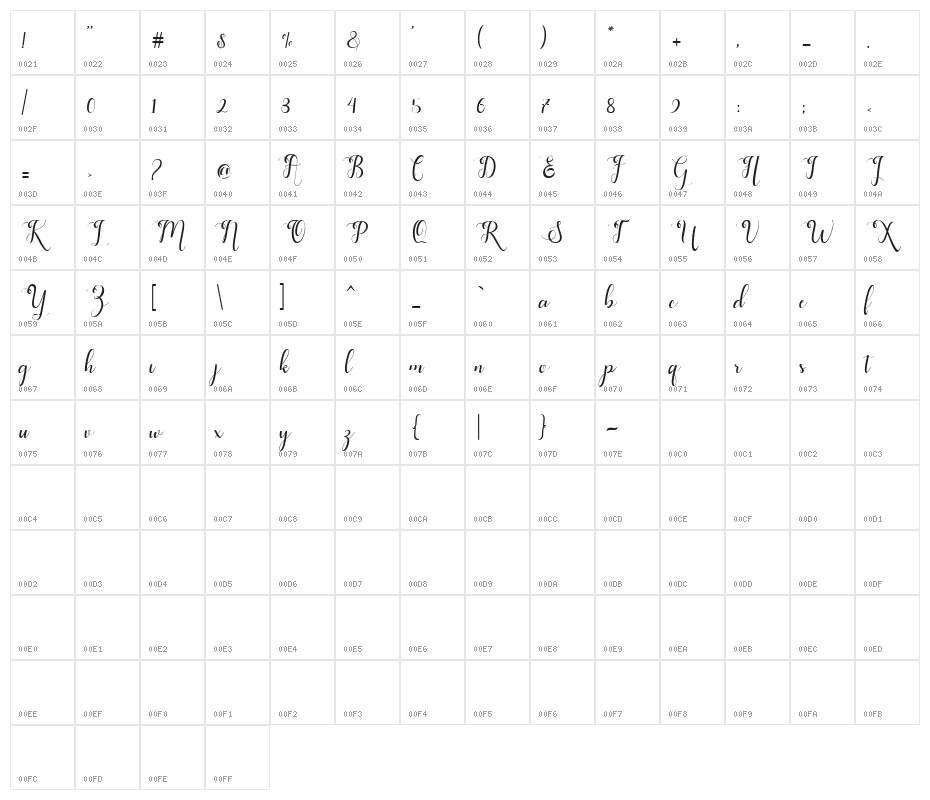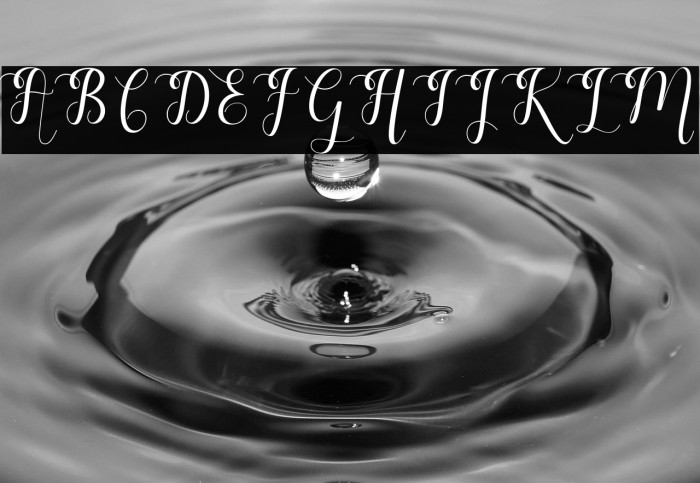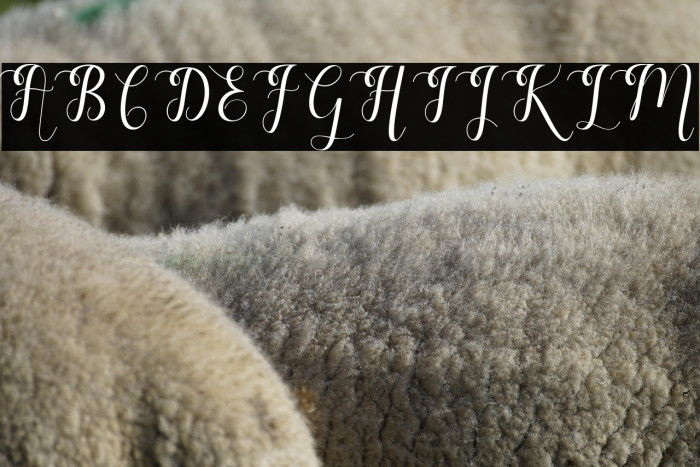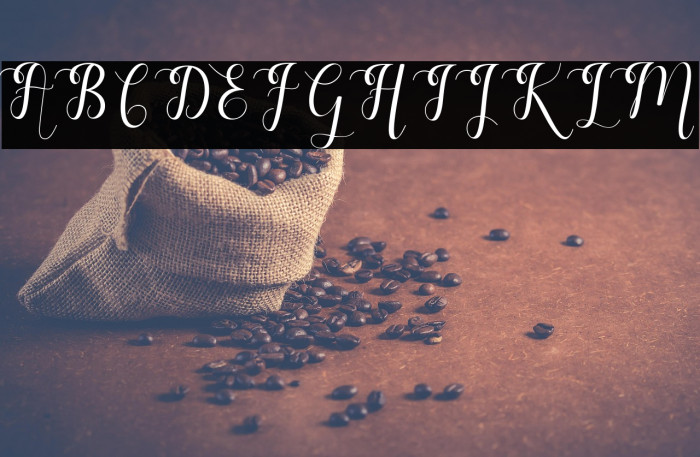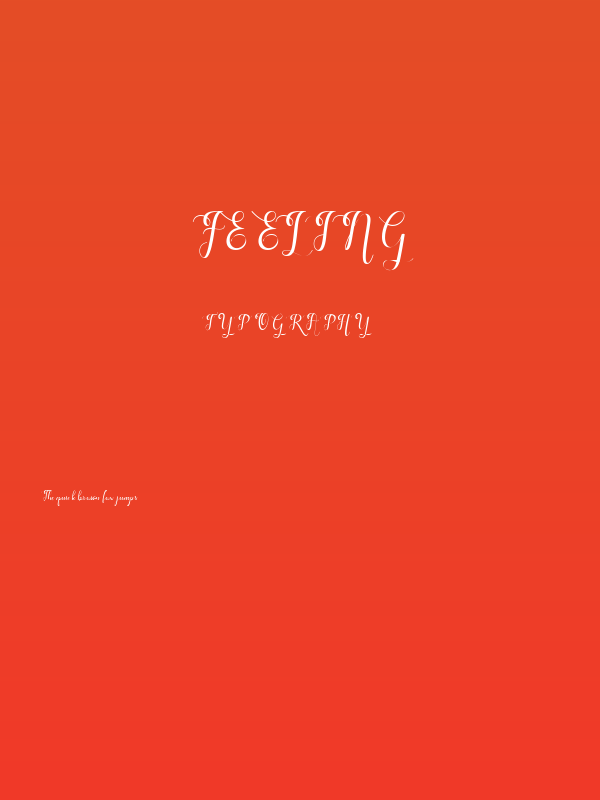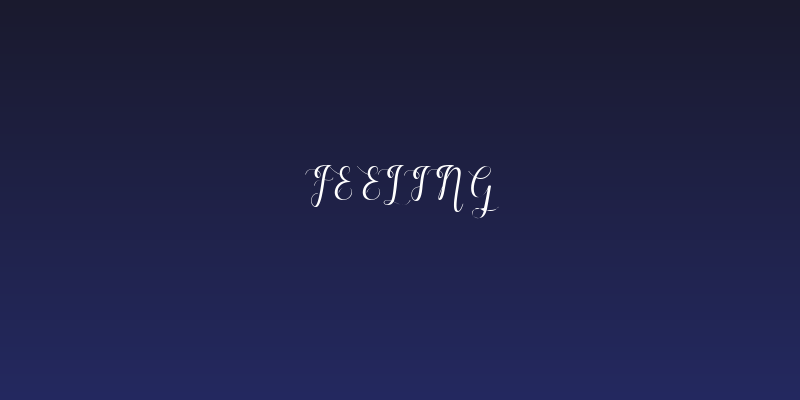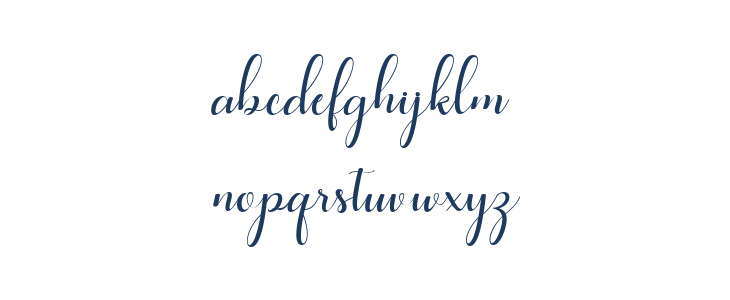
feeling Font
feeling Description
This elegant script font features a flowing, cursive style with intricate swashes and flourishes. The uppercase letters are particularly ornate, with extended loops and curves that give a sense of movement and grace. The lowercase letters maintain a consistent flow, making them highly readable despite their decorative nature. The numerals are styled to match the overall aesthetic, with a slight slant and subtle embellishments. Special characters are thoughtfully designed to complement the letterforms, ensuring a cohesive look across all text. This font exudes sophistication and is perfect for projects that require a touch of elegance.
| Overall Style | Elegant, Decorative |
| Use Case | Logos, Invitations, Headlines |
| Proposed Projects | Ideal for wedding invitations, luxury branding, elegant stationery, and high-end product packaging. |